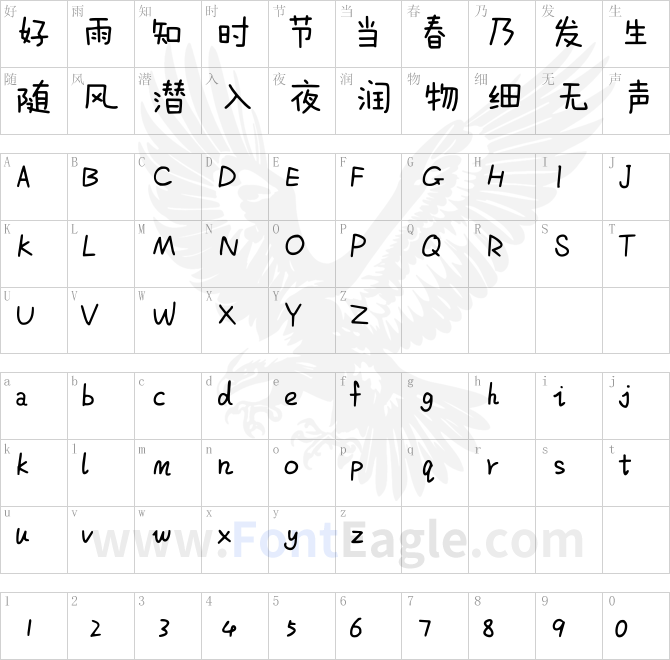
- Font name:方正喵呜体
FZMiaoWuS-GB is a great font, widely used in graphic design, single-page menu design, poster design and other fields, and is deeply loved by designers.FZMiaoWuS-GB download.